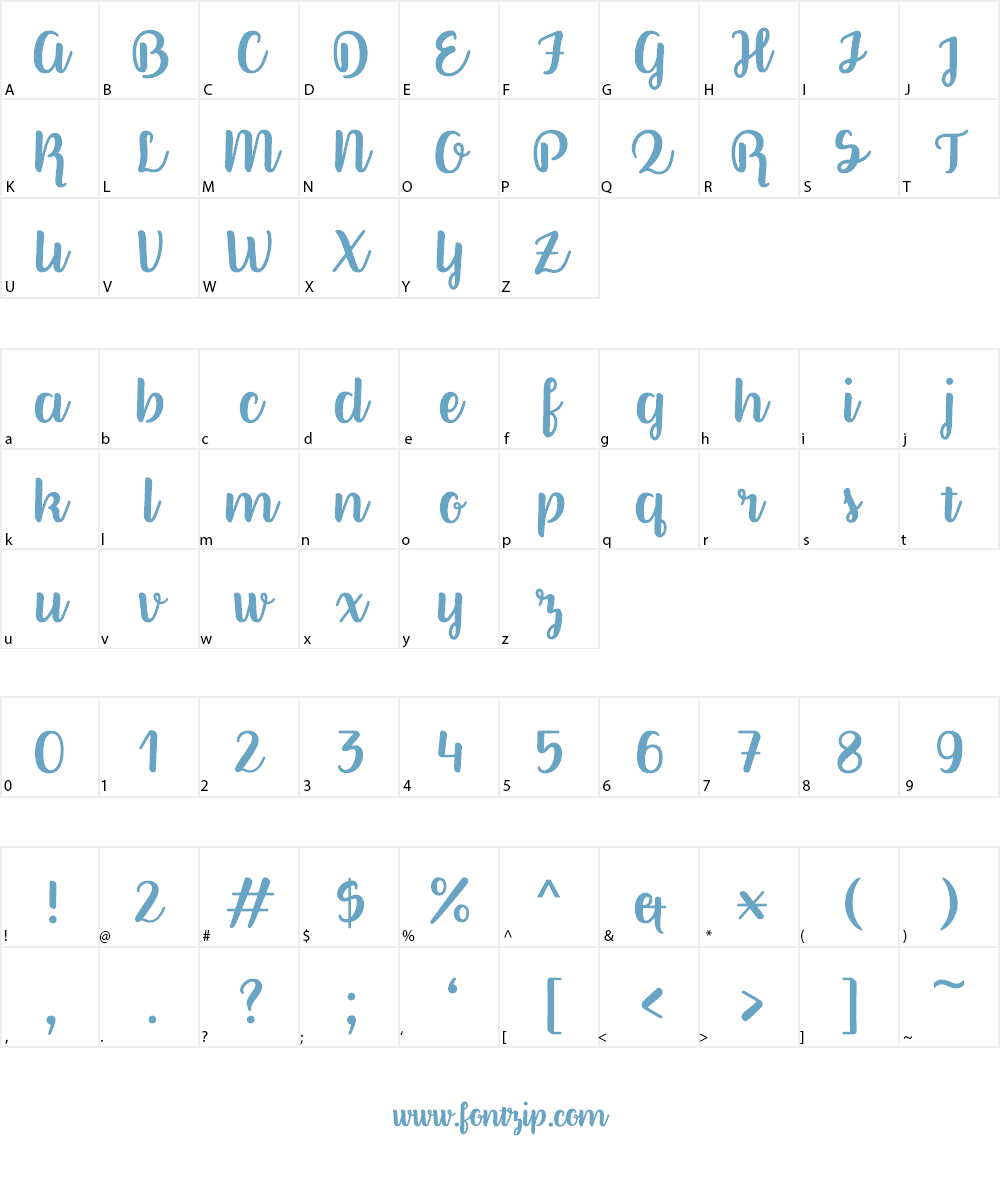
"Better Phoenix" is a polished brush font, with 400 glyphs, including:
- A-Z, a-z, 0-9, accents, punctuation and symbols
- Small Caps
- Contextual and stylistic alternates
- Swashes
- Ligatures